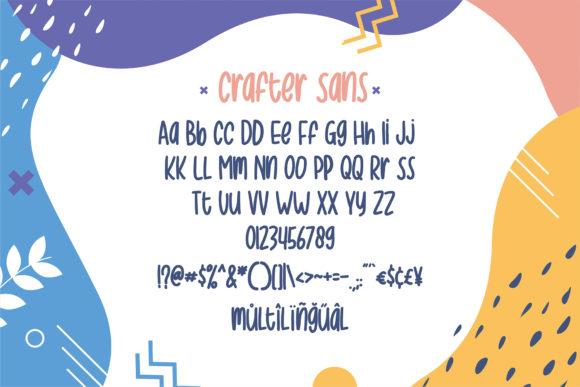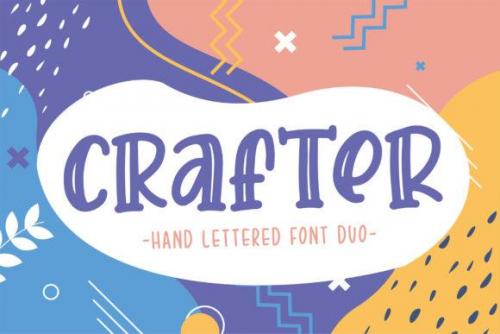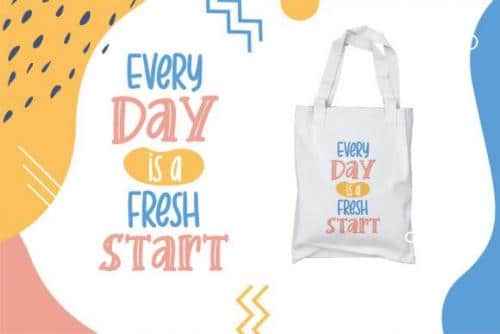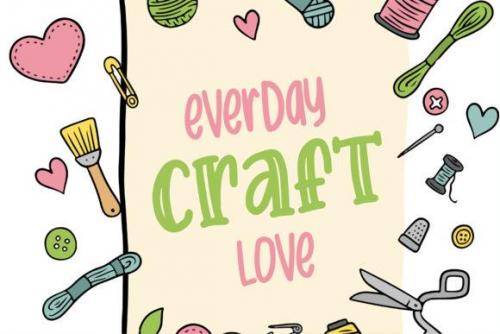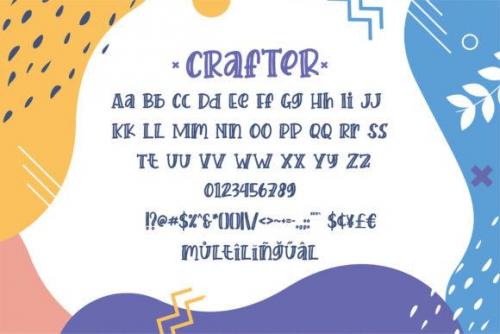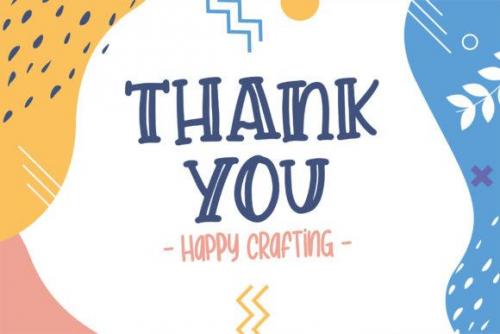
Crafter Hand Lettered Font Duo
Crafter is a cute and lovely handcrafted font duo that feels unique and playful. Ignite your creativity with its authentic charm!
• Designer: Sigit Dwipa